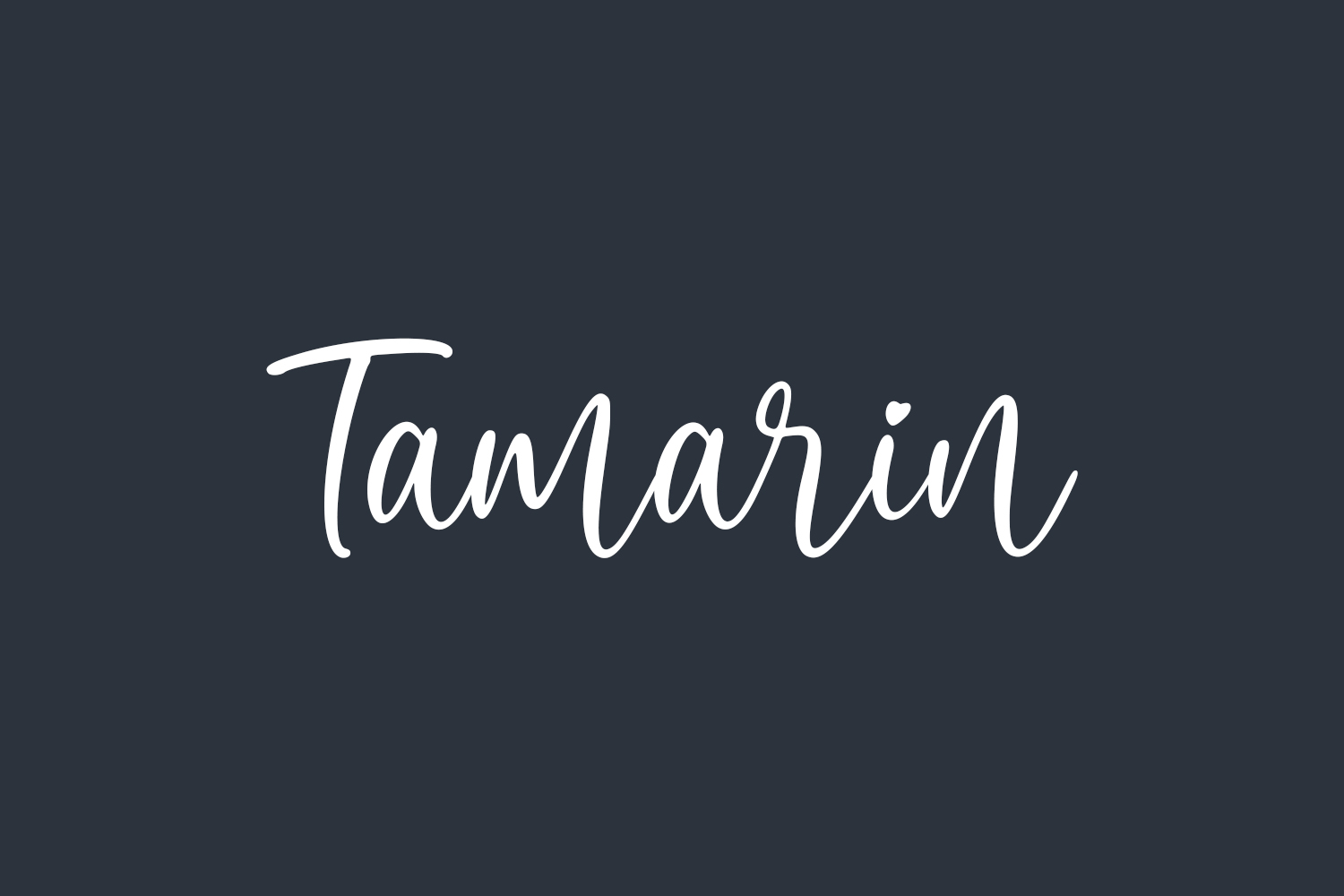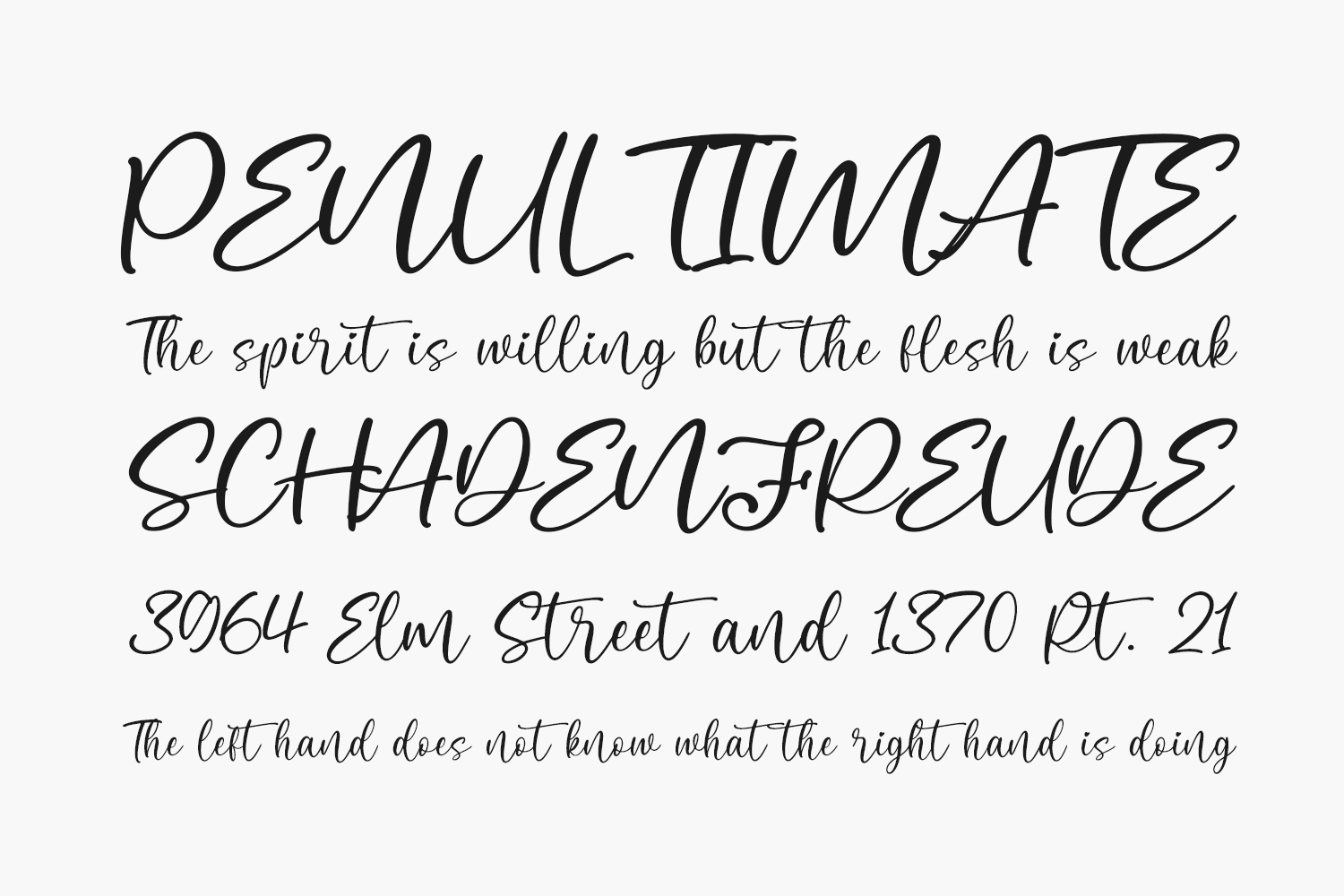
Tamarin Free Font is a romantic and sweet calligraphy typeface with characters that dance along the baseline. It will add a luxury spark to any design project that you wish to create. Tamarin Free Font was designed by Revo Farisky and is free for personal use only. Please purchase the full version for commercial use.